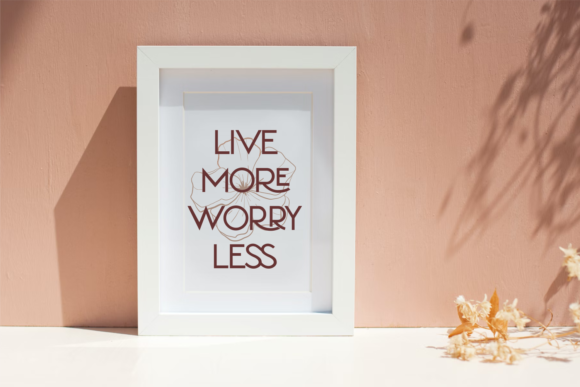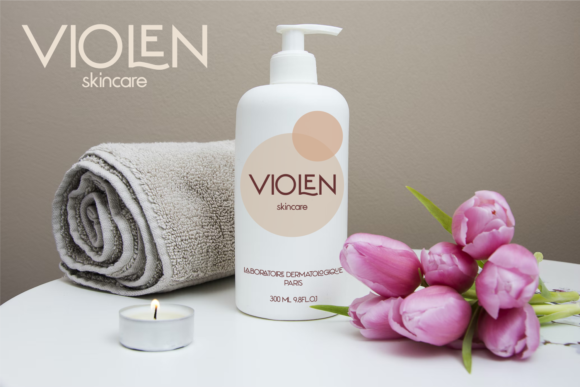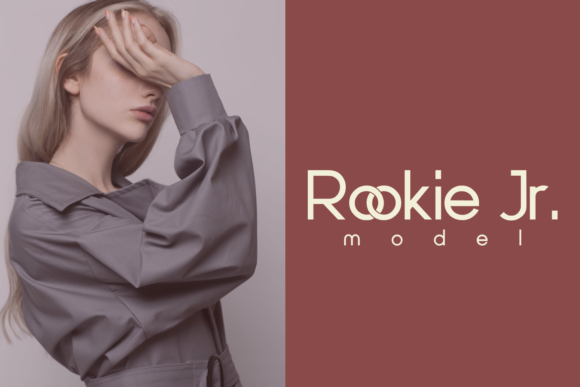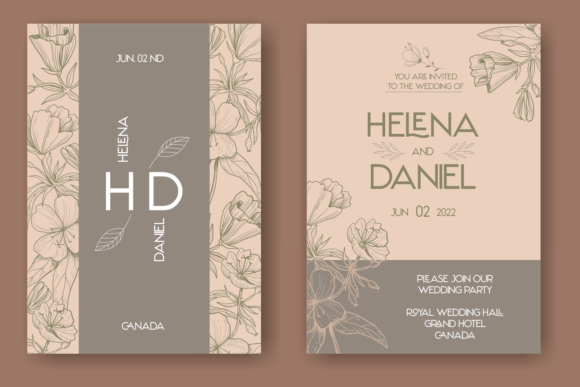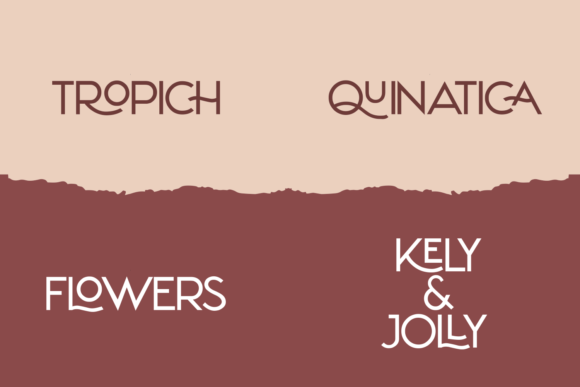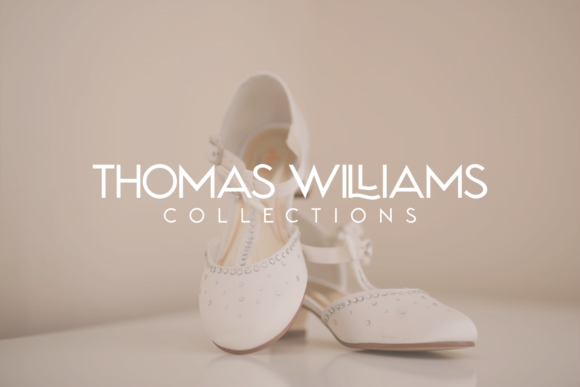
The Designer’s Delight: Unpacking the Blowreph Font
I’ll never forget the time I was working on a branding project for a fashion client, and I just couldn’t find the right font to match their sleek, modern aesthetic. I scoured the internet, tried out dozens of fonts, but nothing seemed quite right. That was until I stumbled upon Blowreph, a clean and minimalistic sans serif font that instantly caught my eye. In this article, I’ll share my experience with Blowreph, its features, and how to make the most of it in your designs.
First Impressions: What I Love About Blowreph
Blowreph is a versatile font that works great for logos, headlines, posters, packaging, branding, beauty, interiors, fashion, and more! Here are some of the things that I love about it:
- ✨ Clean and minimalistic design that’s perfect for modern brands
- ✅ PUA encoded, making it easy to access all glyphs and swashes
- 💡 Highly legible, even at small sizes
- 🎨 Great for creating visual hierarchy and emphasis in your designs
The Not-So-Perfect: Small Quirks and Limitations
While Blowreph is an excellent font, it’s not without its quirks. Here are a few things to keep in mind:
- 🤔 Limited character set compared to some other fonts, which may limit its use for certain projects
- ⚠️ May not be the best choice for body text, as it’s designed primarily for headlines and titles
The Story Behind Blowreph: Designer Inspiration
Blowreph was designed with the modern designer in mind. Its creator wanted to craft a font that was both clean and elegant, with a focus on versatility and legibility. The result is a font that’s perfect for a wide range of design projects, from branding and advertising to packaging and editorial design.
- Q: What is PUA encoding, and how does it benefit designers?
- A: PUA (Private Use Area) encoding allows designers to access a wide range of glyphs and swashes, making it easier to create custom designs and typography.
- Q: Is Blowreph suitable for body text?
- A: While Blowreph is highly legible, it’s designed primarily for headlines and titles. For body text, you may want to consider a font with a larger character set and more optimized for reading.